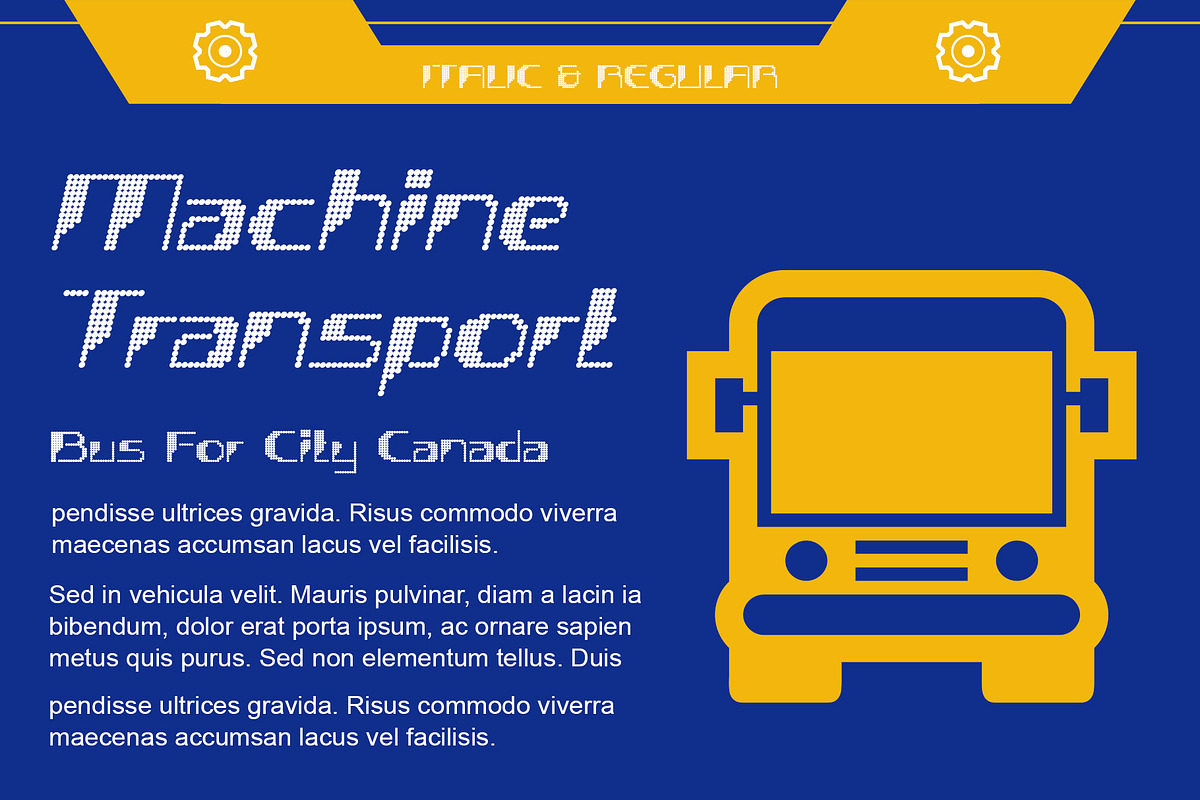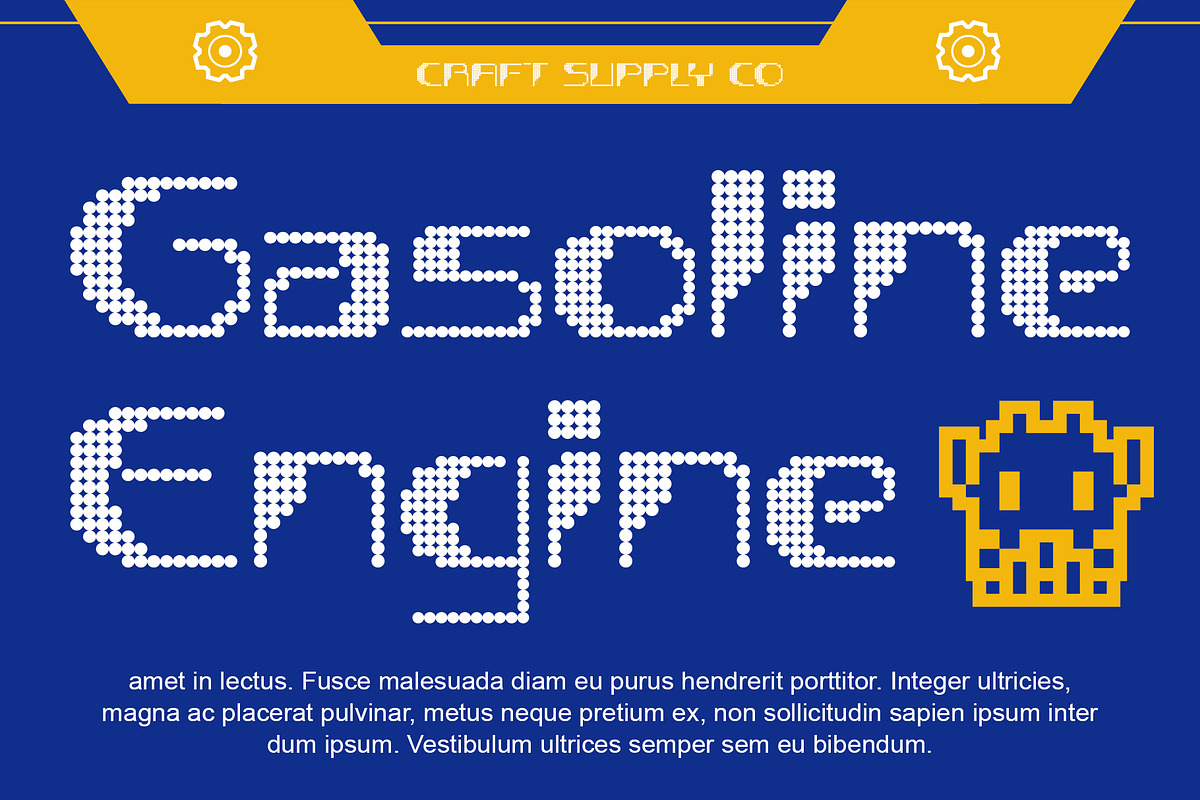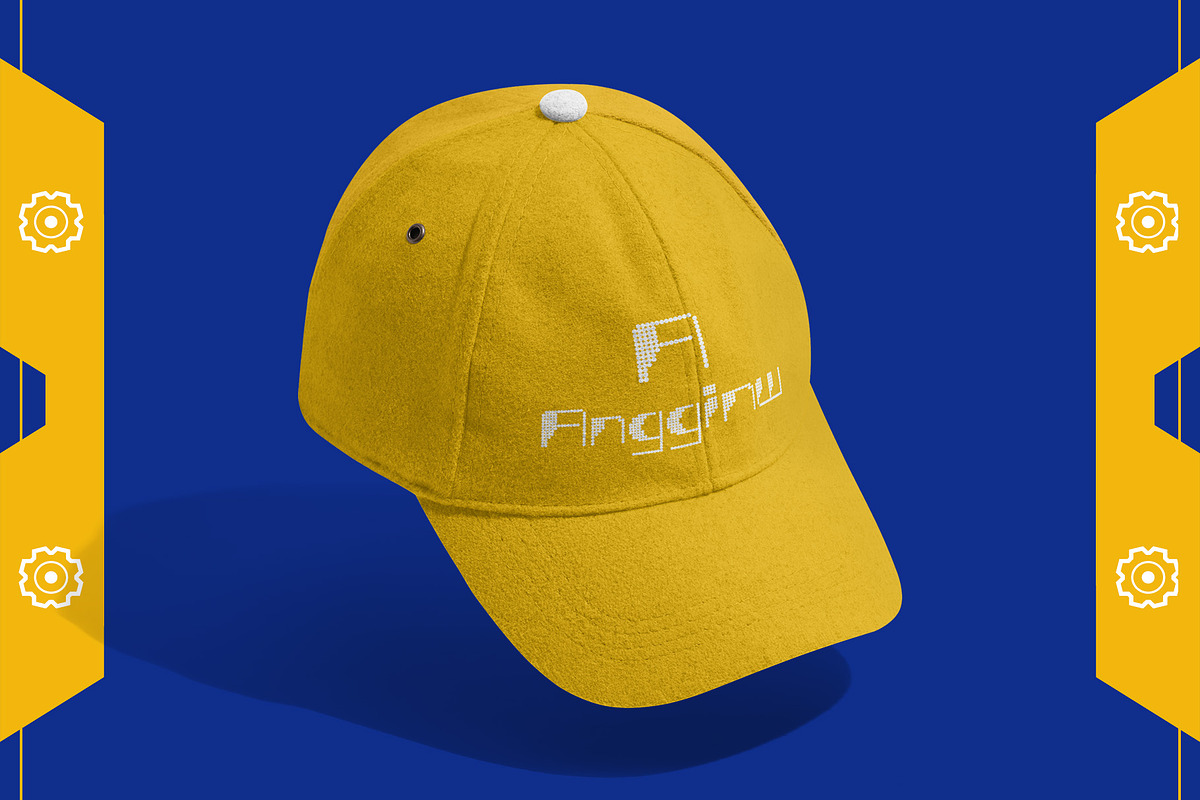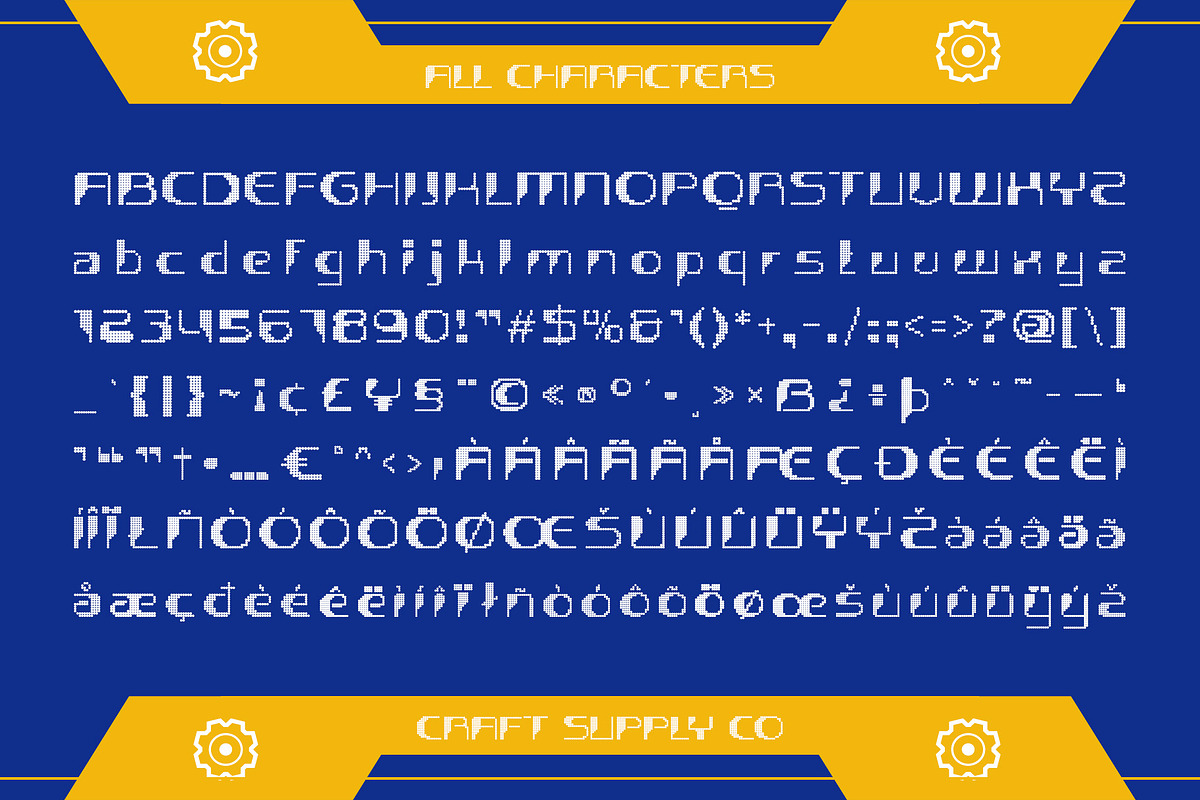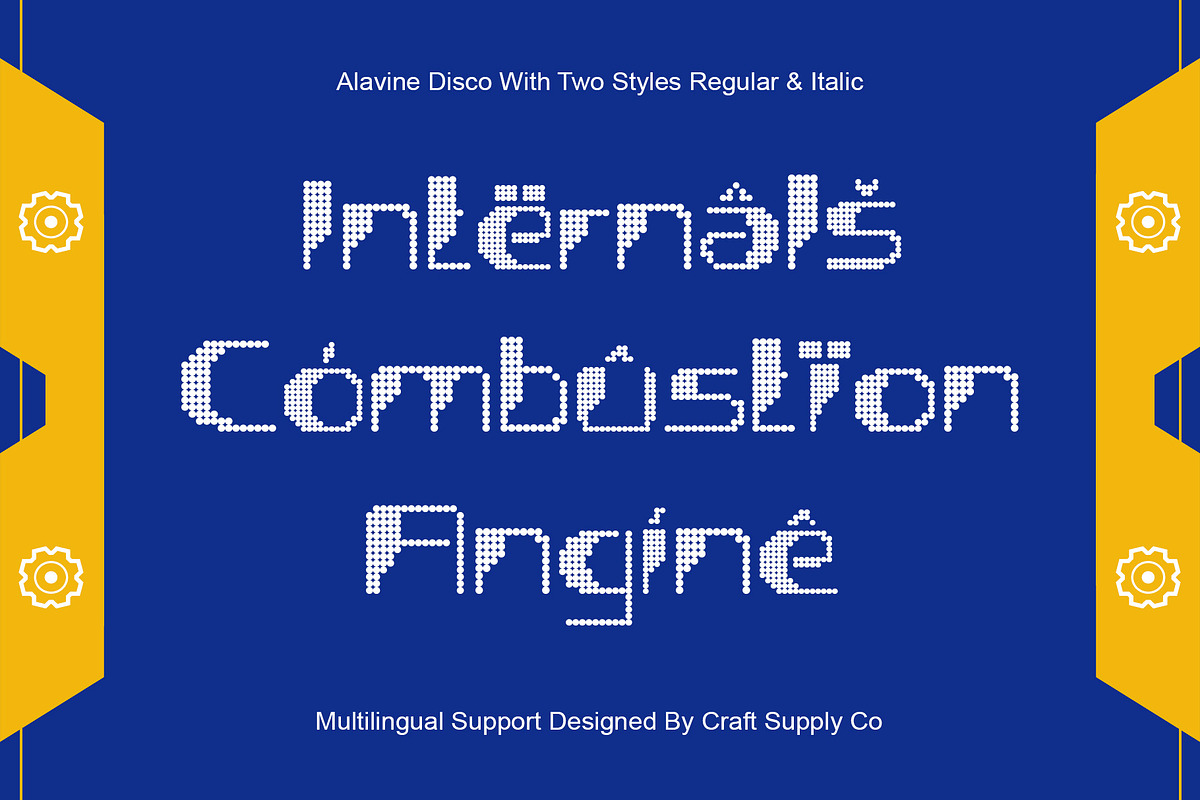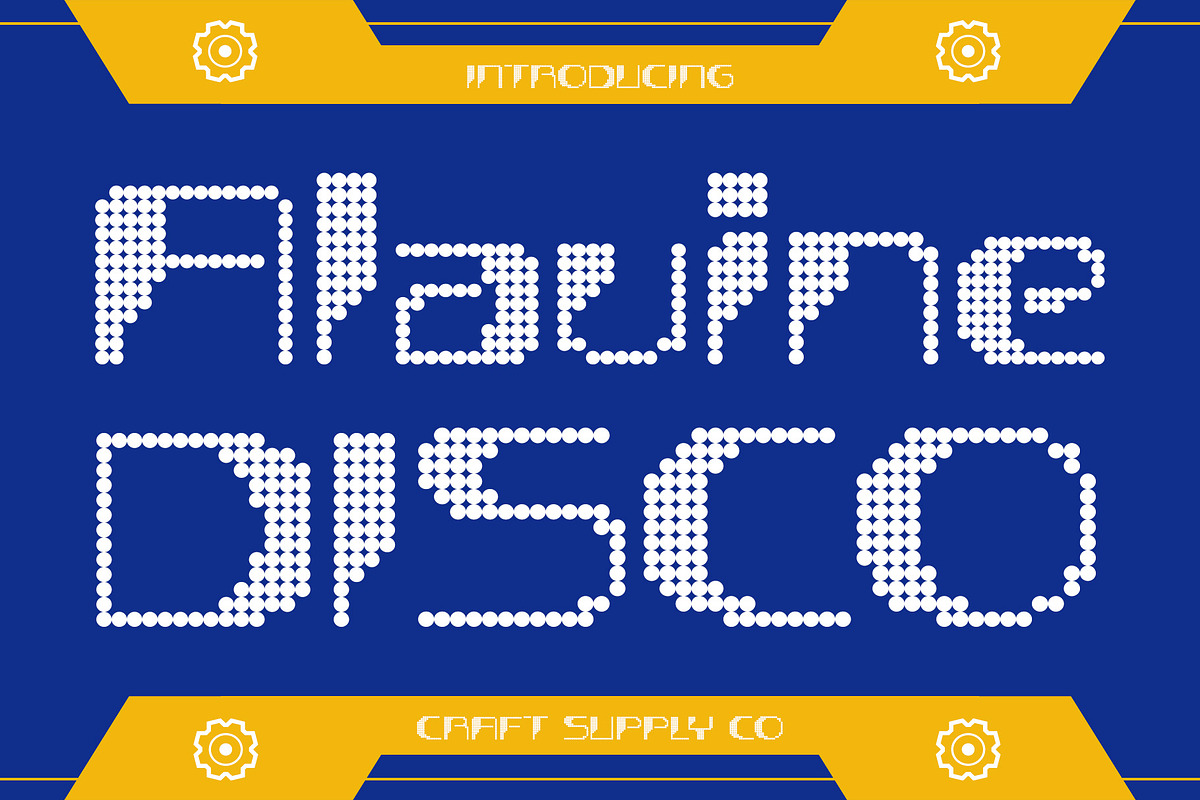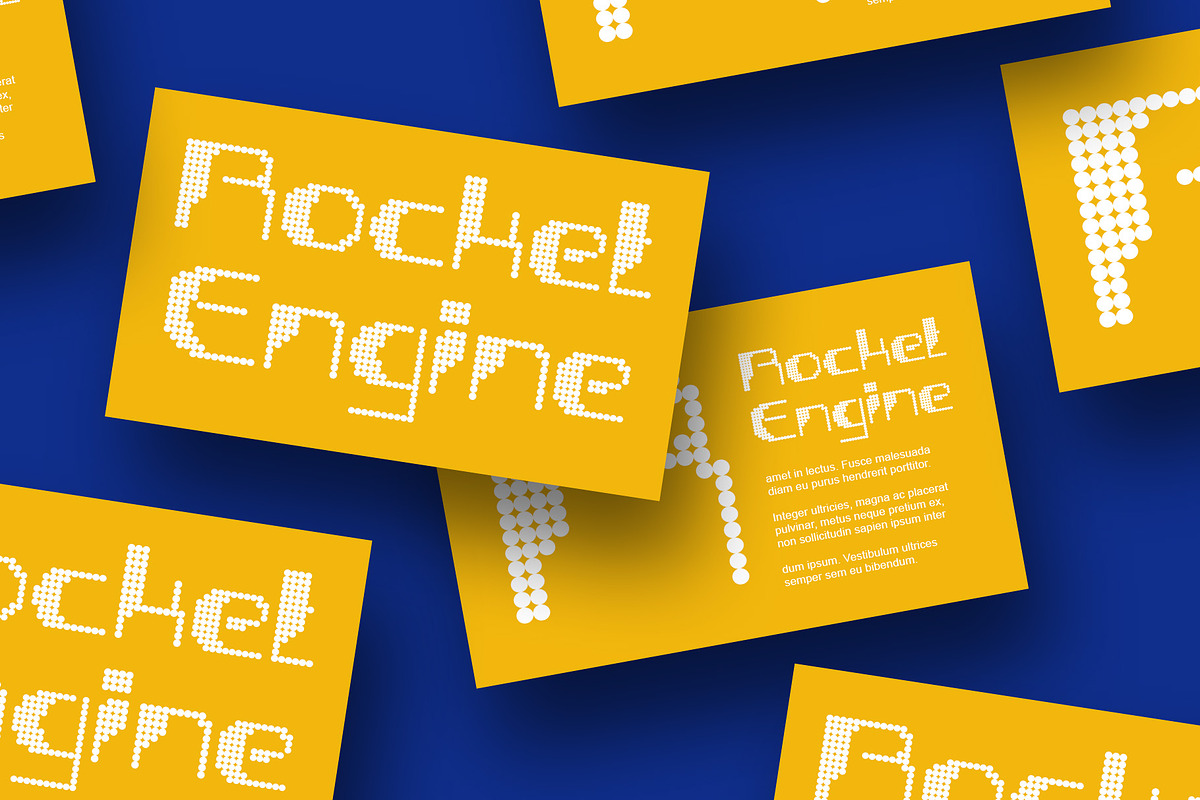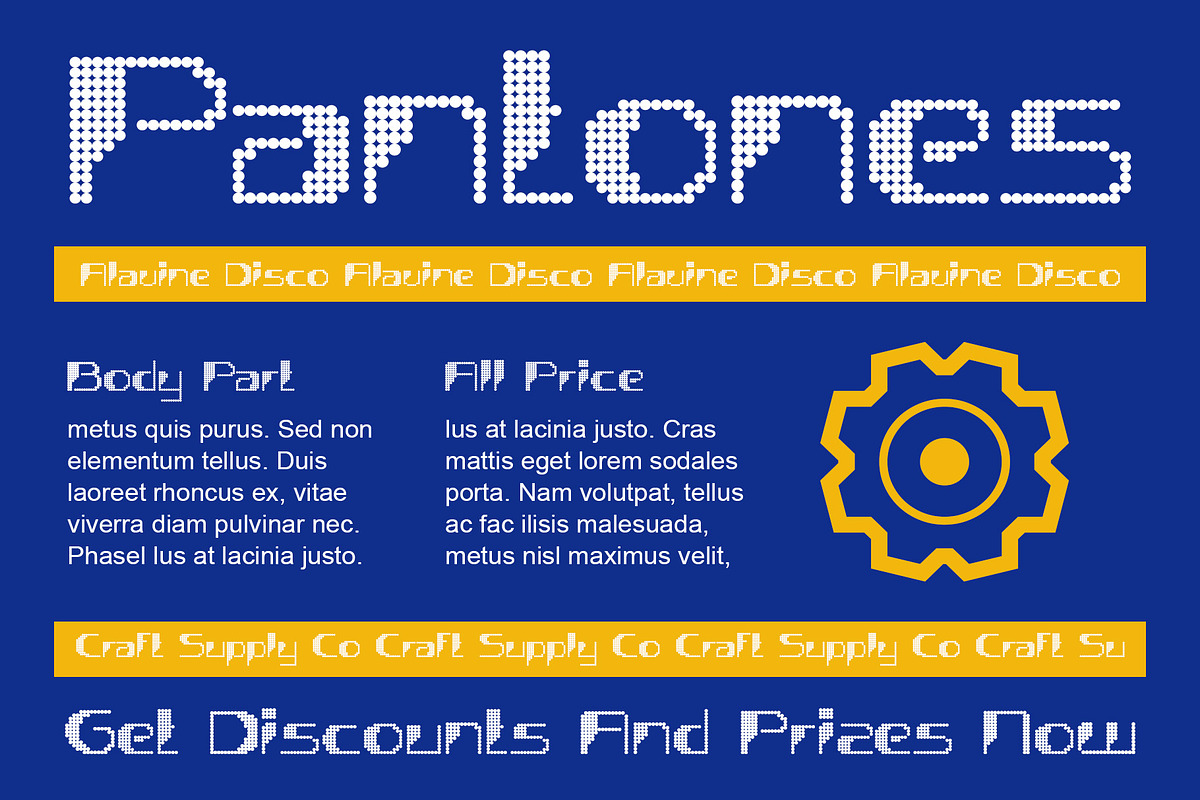
Alavine Disco
Alavine Disco: Where Futurism Meets Funk
Disco Dot Display Font
Alavine Disco is a mesmerizing display font that captures the essence of the disco era with a futuristic twist. Featuring a unique dot pattern that adds a touch of retro charm, this font is perfect for making a bold statement in your designs.
Futuristic Design with a Disco Vibe
With its modern, futuristic design and disco vibe, Alavine Disco is the perfect font for projects that need a touch of retro-futurism. The dot pattern gives the font a dynamic and energetic feel, making it ideal for posters, album covers, and other projects that require a striking display.
Perfect for Eye-Catching Displays
Whether you’re creating a poster for a retro-themed event or designing packaging for a disco-inspired product, Alavine Disco is sure to grab attention. Its bold design and unique dot pattern make it perfect for eye-catching displays that demand to be noticed.
Versatile and Easy to Use
Despite its bold appearance, Alavine Disco is surprisingly versatile and easy to use. The font works well in both large and small sizes and can be used for headlines, banners, logos, and more. Plus, with its disco-inspired vibe, it’s sure to add a touch of retro flair to any design.
- Alavine Disco Regular
- Alavine Disco Italic